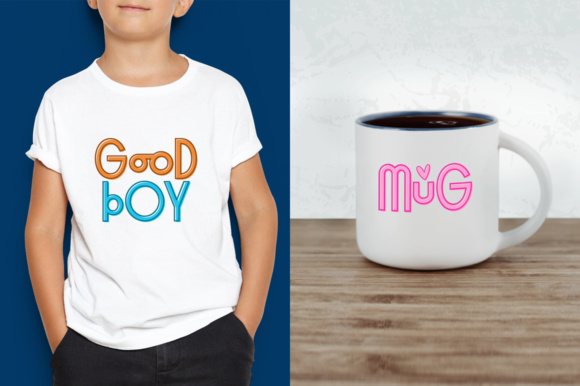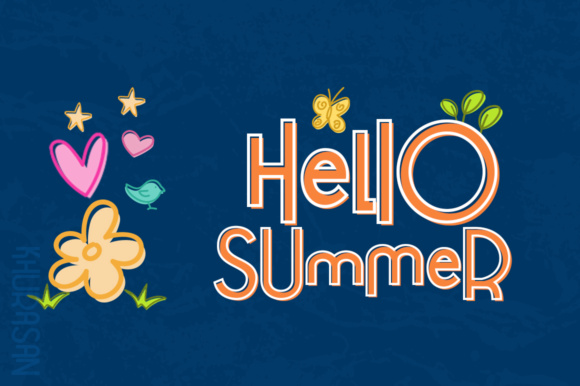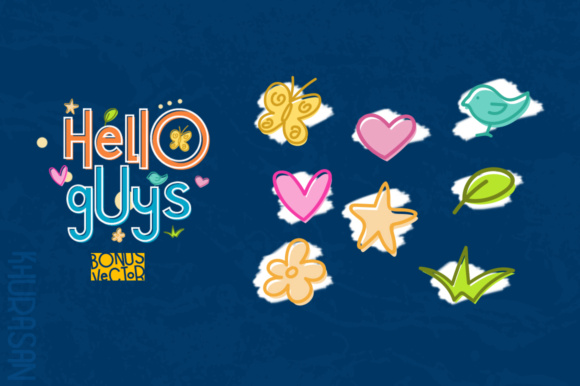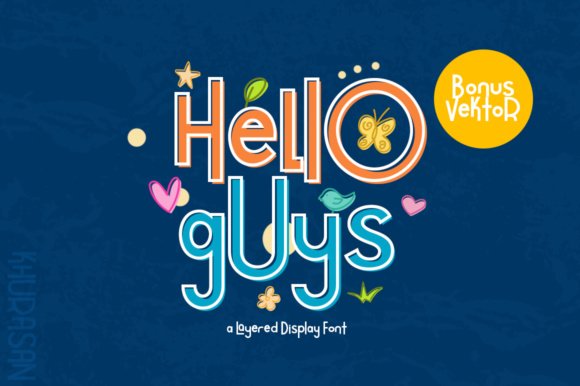
Introduction to Hello Guys Font
Hello Guys is a fun and cheerful sans serif font, ideal for use in poppy and bright projects.
This layered font can give your works a really cool feel, and is suitable in a wide range of industries and design styles .
Hello Guys Font offers exceptional quality and versatility, making it a valuable addition to your design toolkit. Whether you’re creating for personal projects or commercial use, Hello Guys Font delivers professional results.